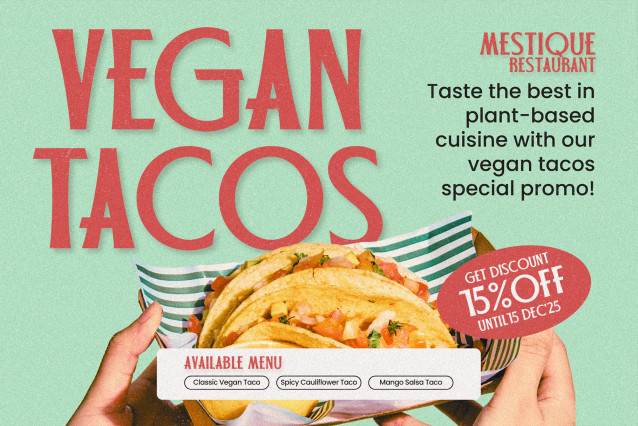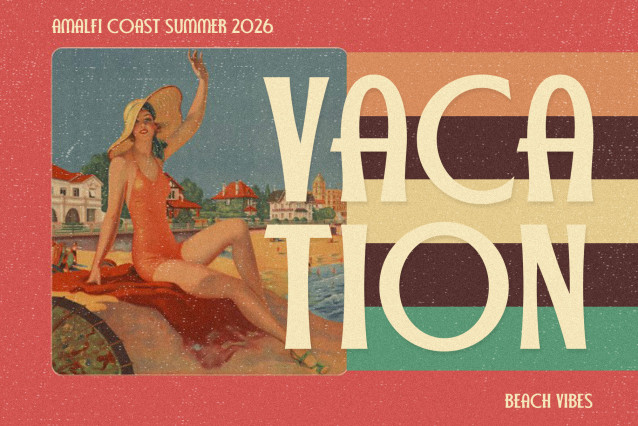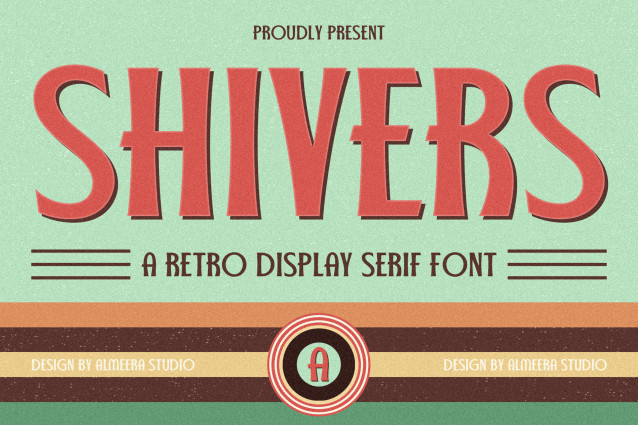
Shivers Font
Shivers Font is a Retro Display Serif Font, elegant and simple font, best used as a display for headings, logos, branding, magazines, product packaging and invitations.